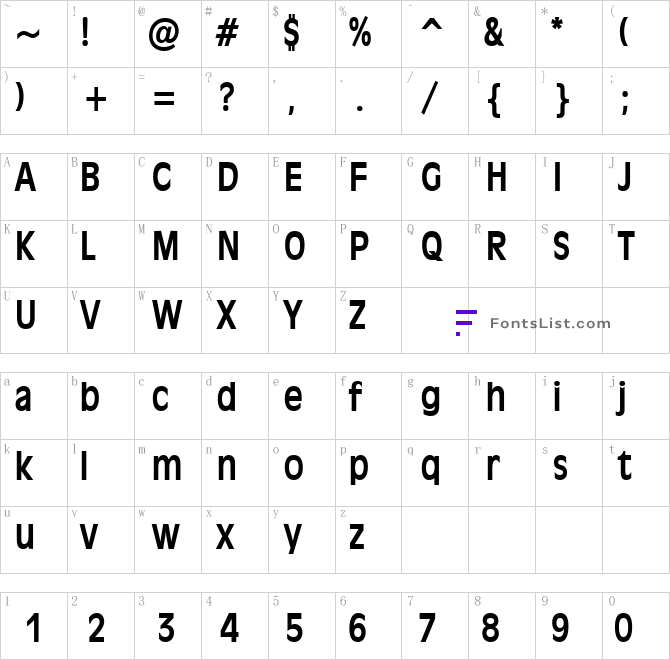
- Font Name:Antiqua 101-Condensed
- Subfamily:Alts:Antiqua 101-Condensed Bold
- Full Name:Antiqua 101-Condensed Bold
Antiqua-101-Condensed-Bold1-.ttf is a very beautiful artistic font, Antiqua-101-Condensed-Bold1-.ttf is widely used in the design and printing of various books and pictures,Antiqua-101-Condensed-Bold1-.ttf has a strong visual impact,Antiqua-101-Condensed-Bold1-.ttf is a commonly used font in newspapers, magazines and books, and is used in posters, e-commerce Poster design, store design, logo design, font design and other fields.Antiqua-101-Condensed-Bold1-.